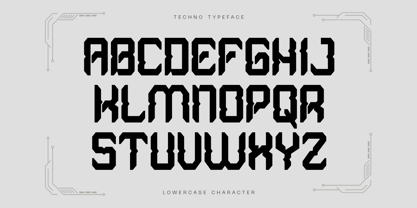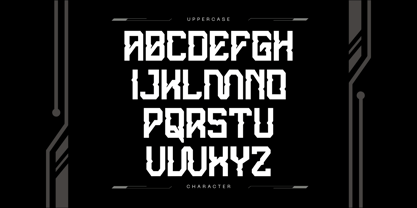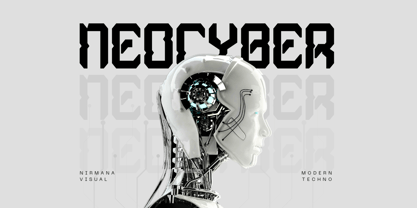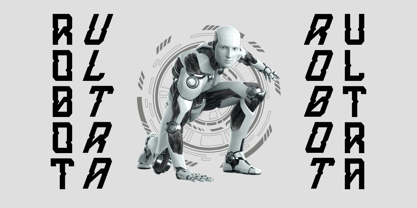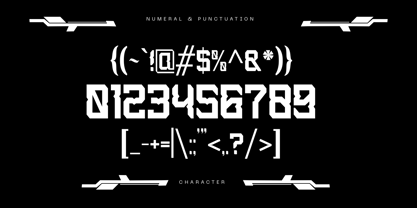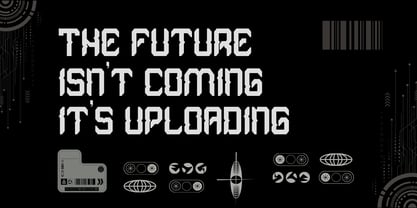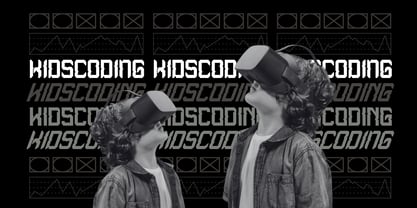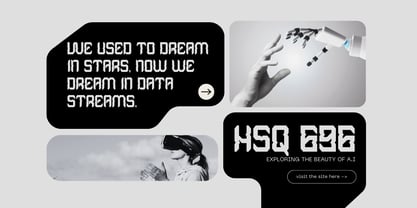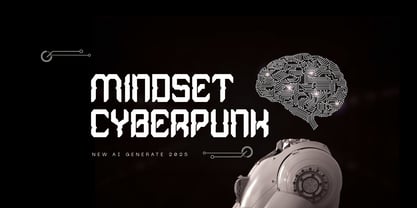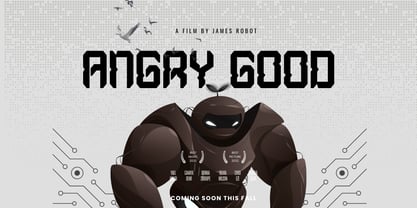
Neo Techno
by Nirmana Visual
The Neo Techno Font Family was designed by Sigit Dwipa and published by Nirmana Visual. Neo Techno contains 2 styles and family package options. More about this family
Neo Techno offers beautiful typographic harmony for a diversity of design projects, including logos & branding, social media posts, advertisements & product designs.
Designers: Sigit Dwipa
Current Foundry: Nirmana Visual